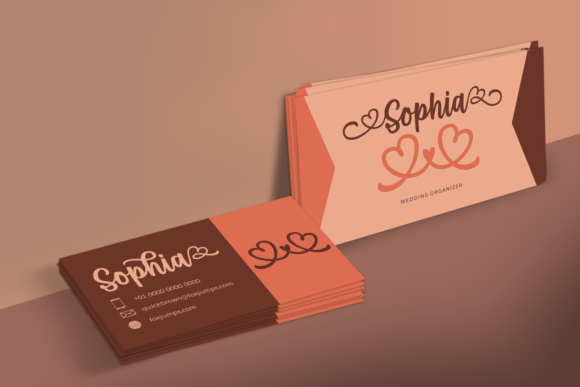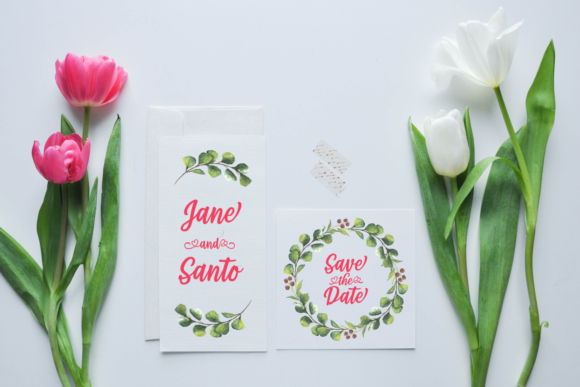
Styla Font
db-ku.com - Script & Handwritten -- Styla is a fun and bold handwritten font with a unique urban spin. It will turn any design project into a true stand out.